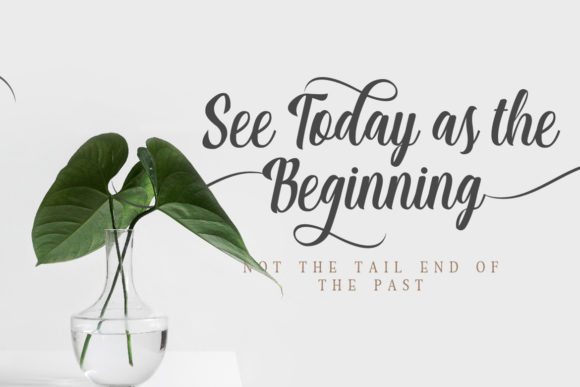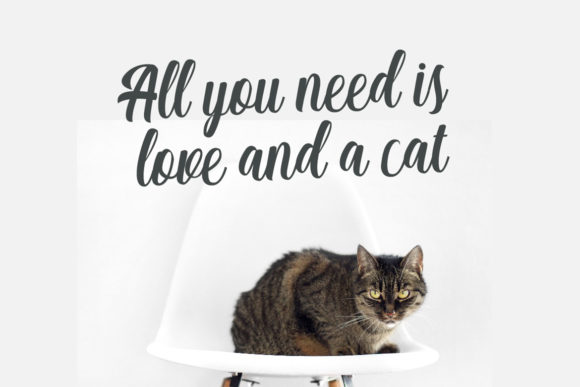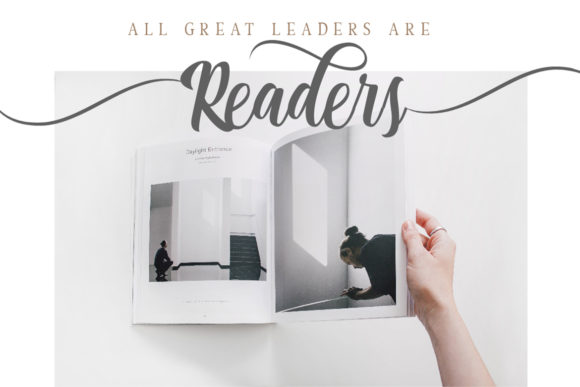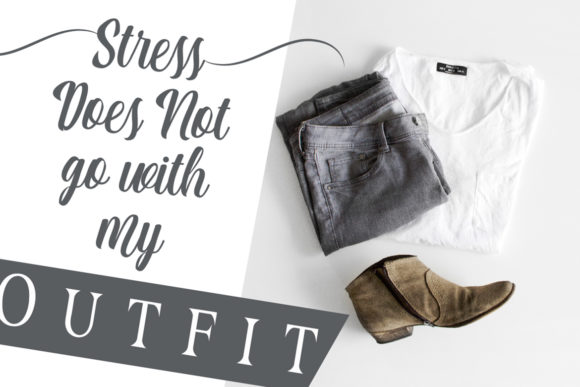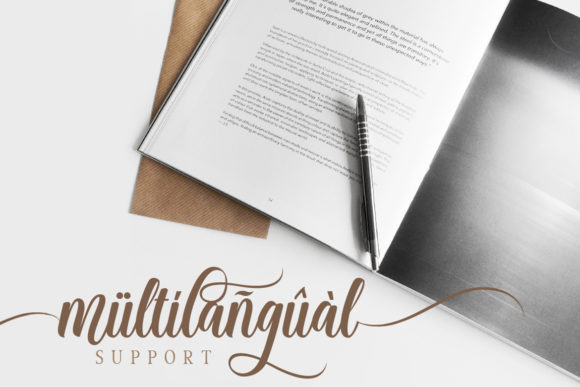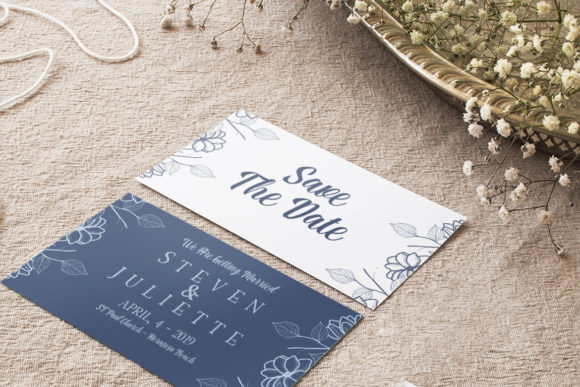
Introduction to Matilda Anderson Duo Font Font
Fonts play a crucial role in design, and the Matilda Anderson Duo Font font is a typeface that brings both character and versatility to any project. Whether you’re working on a branding project, a website, or a print design, the Matilda Anderson Duo Font font offers a unique style that can elevate your work.
The Matilda Anderson is an elegant font duo.
It includes two amazing styles which can be combined perfectly Giving you the opportunity to create multiple unique designs in an instant.
Key Features of Matilda Anderson Duo Font Font
Why Choose Matilda Anderson Duo Font Font?
The Matilda Anderson Duo Font font is more than just a typeface – it’s a design tool that helps you communicate your message with style and clarity. Its unique character set and versatile design make it suitable for a wide range of applications, from elegant invitations to bold headlines.
With its carefully crafted letterforms and balanced proportions, the Matilda Anderson Duo Font font ensures readability and visual appeal across all mediums.
What makes Matilda Anderson Duo Font font special?
The Matilda Anderson Duo Font font stands out with its unique design, exceptional readability, and versatility across various design applications.